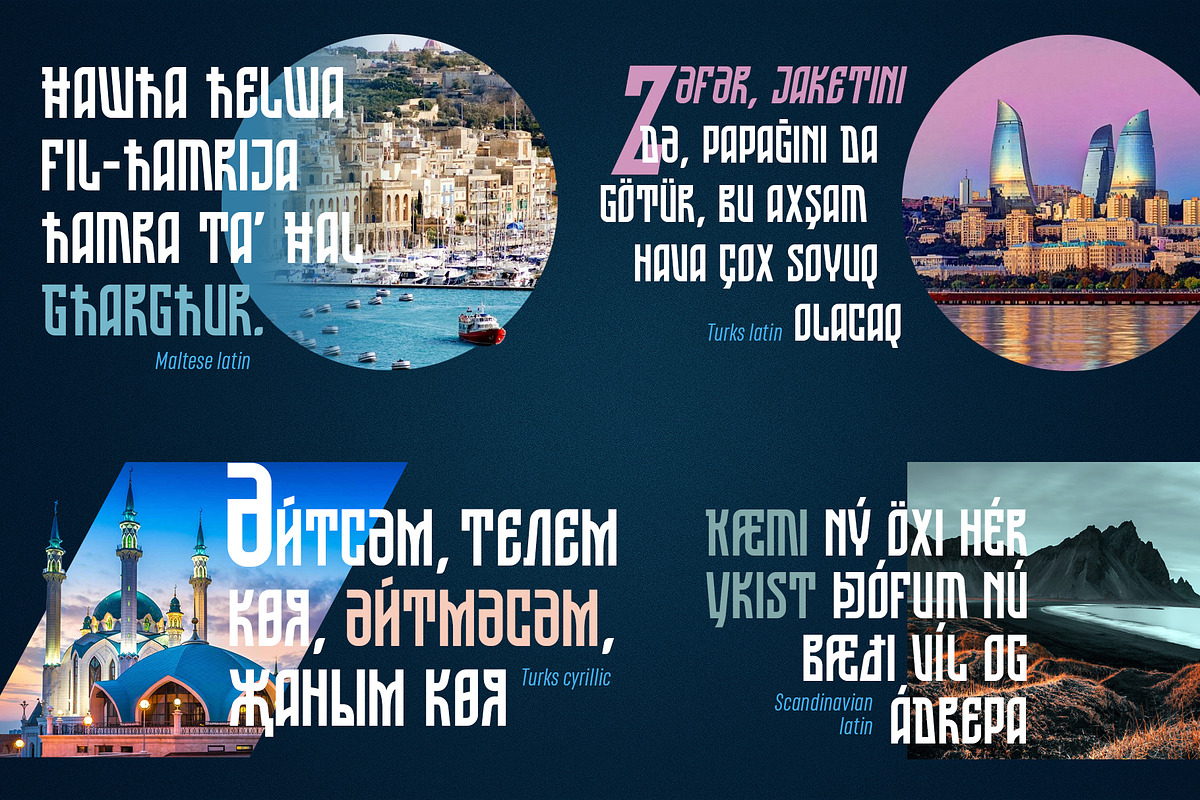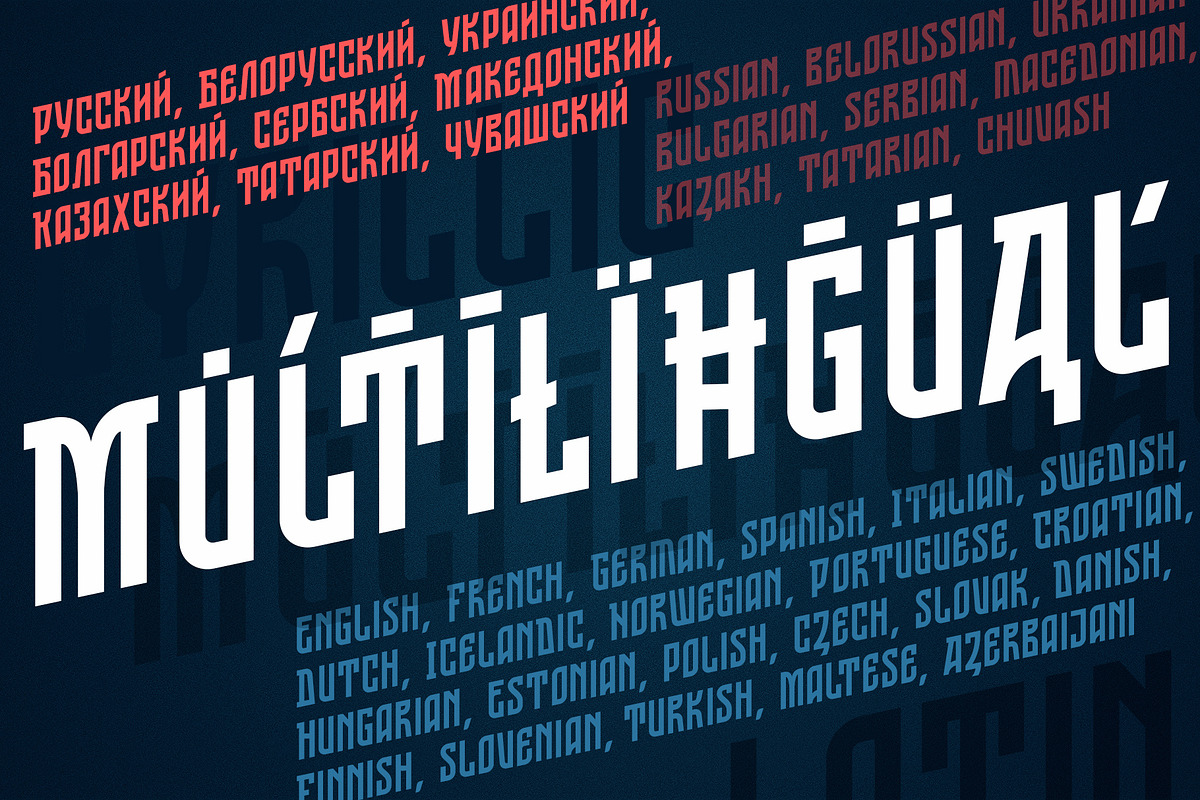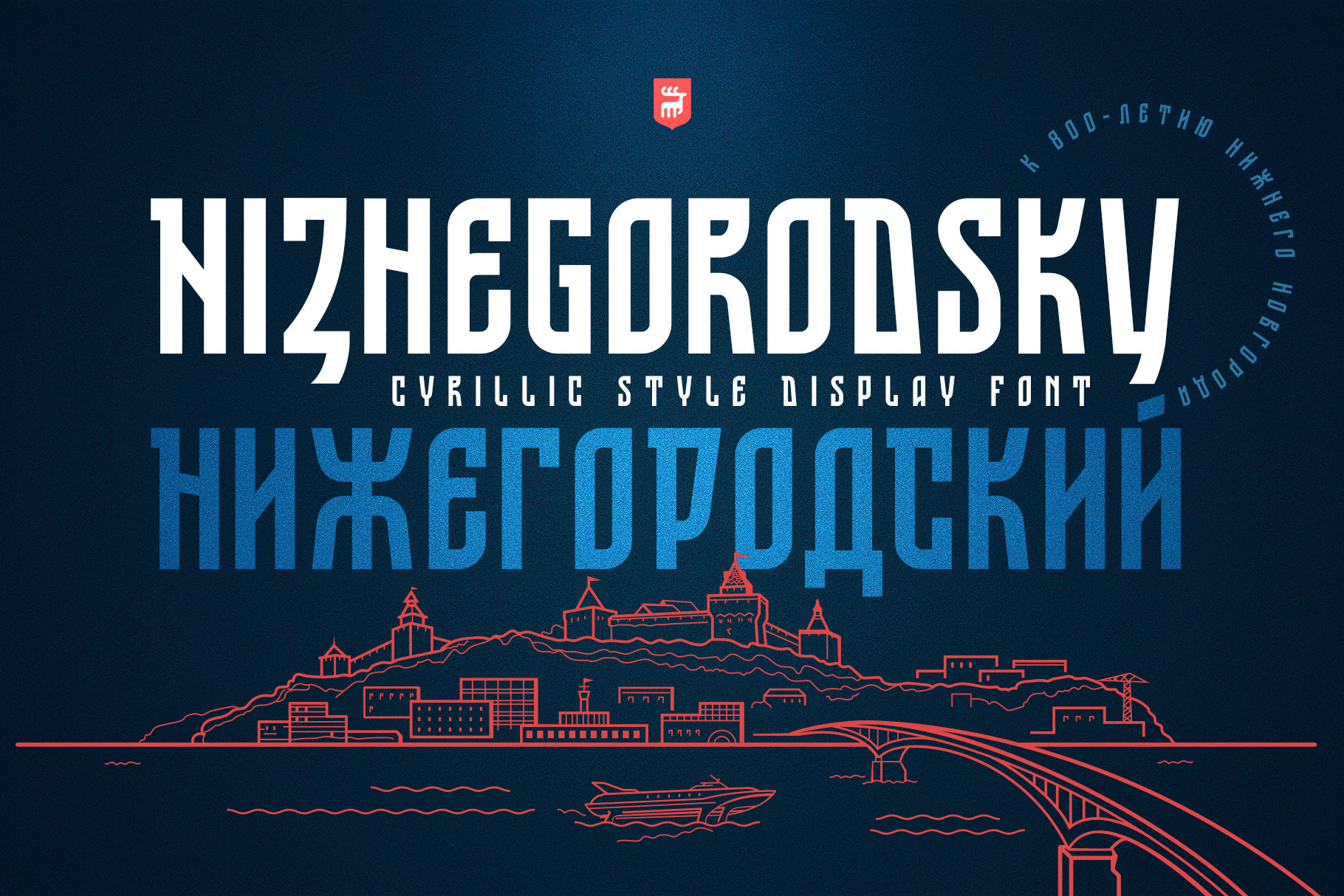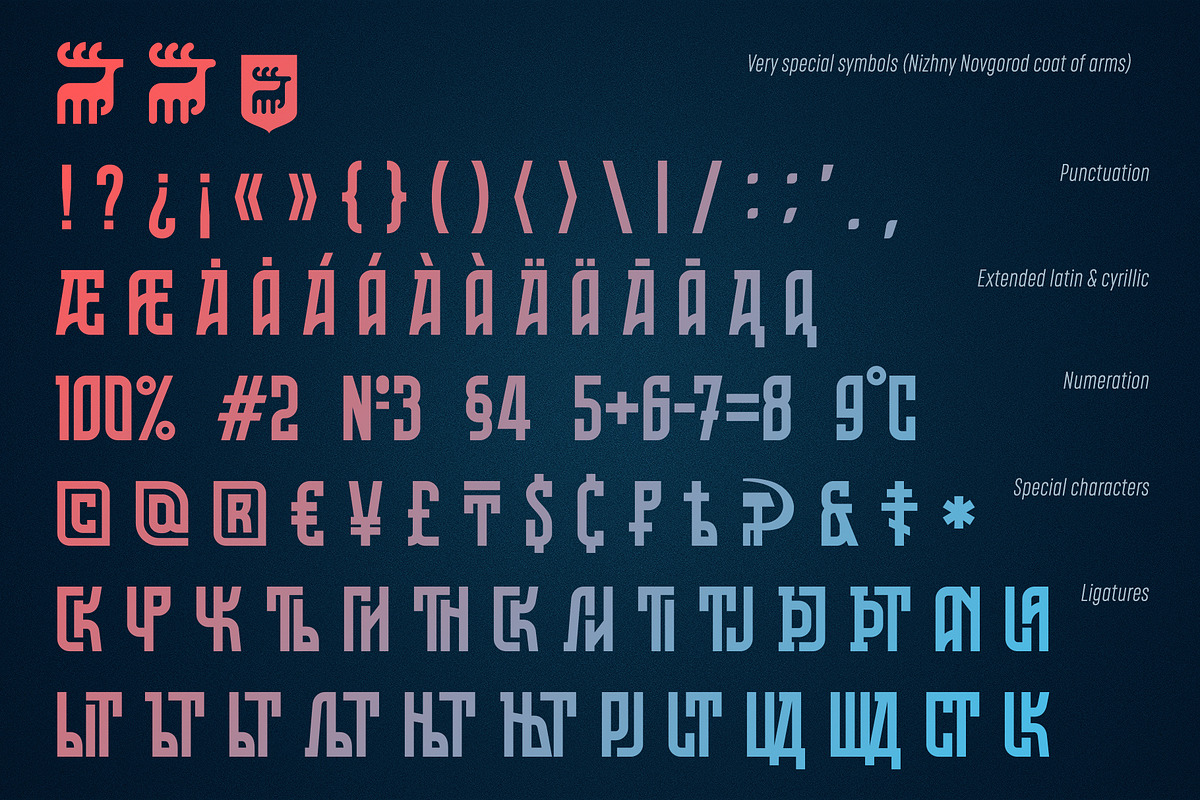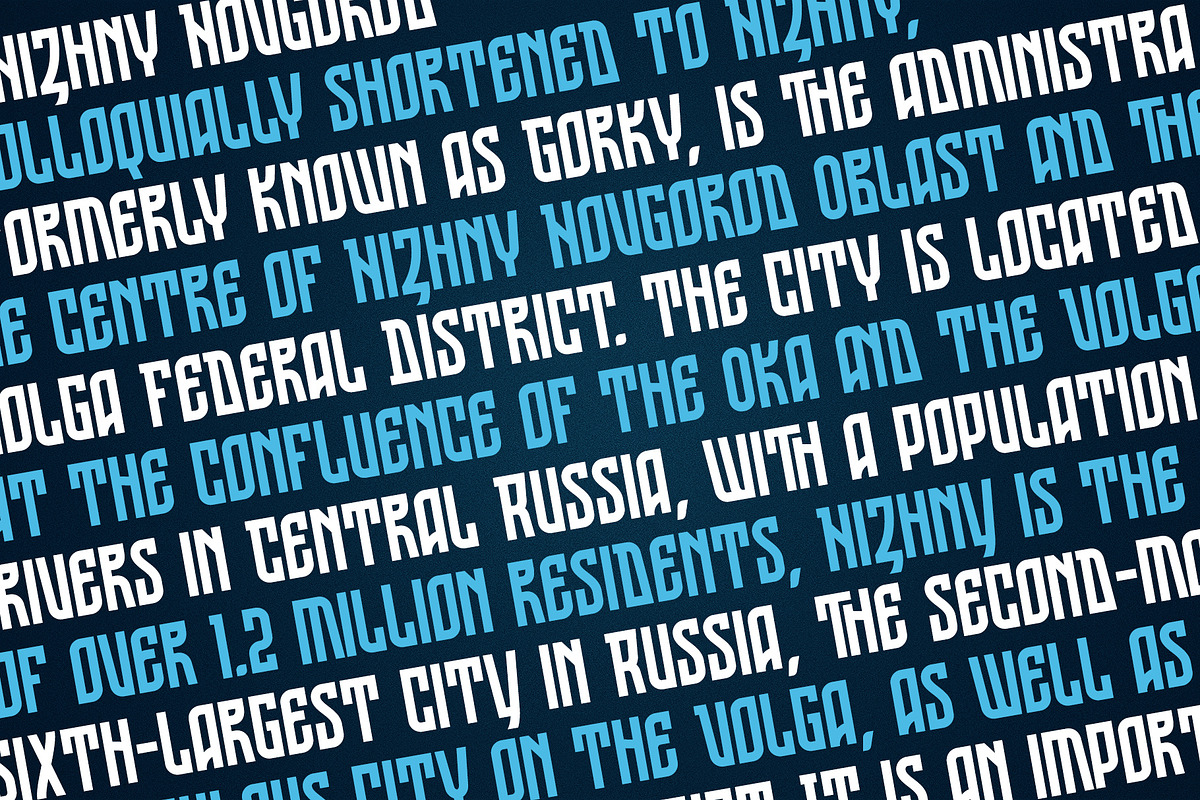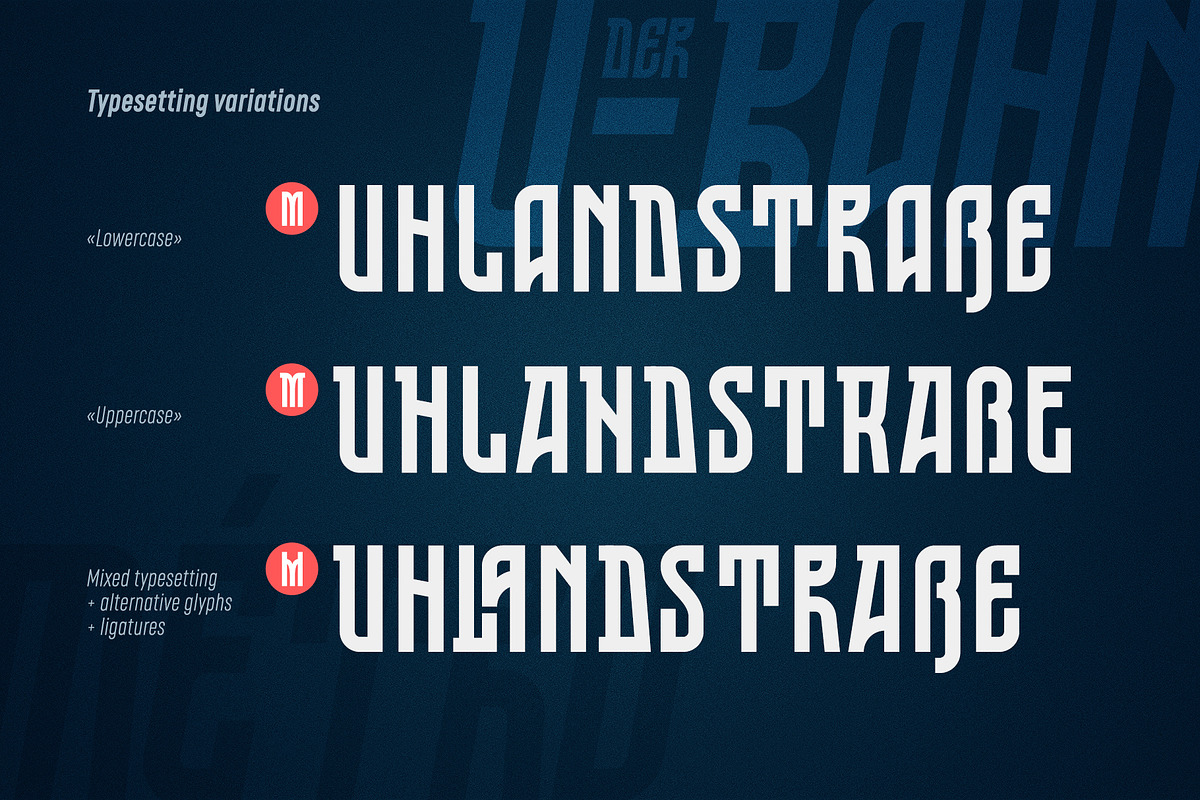
ST-Nizhegorodsky Neo Cyrillic font
"ST-Nizhegorodsky" - experiment with mixing of ancient slavic letters style called Vyaz with modern condenced grotesque. This font is dedicated to 800th annivesary of the city of Nizhny Novgorod (est 1221 AD), one of the oldest russian city. It's 100% recognizable as a native font for cyrillic users and has strong ethnic taste for latin users. The letterforms are straight and condensed and come in 2 styles: uppercase and small caps alternatives (Take a look at the cyrillic glyphs if you want more alternative letters.). The "Nizhegorodsky" created for titles, poster design, web design, branding and packaging works, illustrations, badges and other typography works.
It has Extended LATIN and Extended CYRILLIC letters, numerals, special characters and basic punctuation.
Supported languages: Latin: English, French, German, Spanish, Italian, Swedish, Dutch, Icelandic, Norwegian, Portuguese, Croatian, Bosnian, Hungarian, Polish, Estonian, Czech, Slovak, Danish, Finnish, Turkish, Slovenian, Maltese, Azerbaijani.
Cyrillic: Russian, Belarusian, Bulgarian, Chuvashian, Kazakh, Tatarian, Macedonian, Serbian, Ukrainian and probably others )